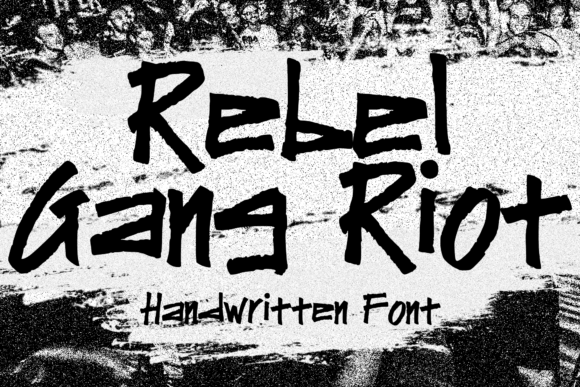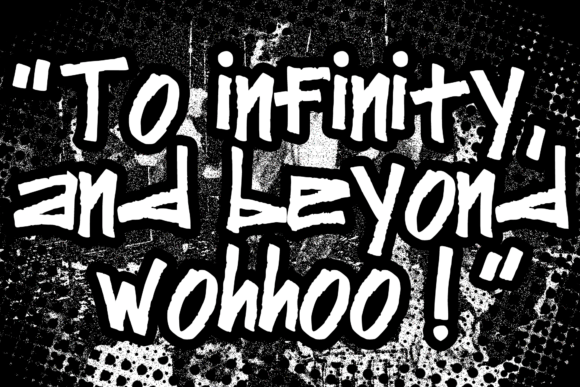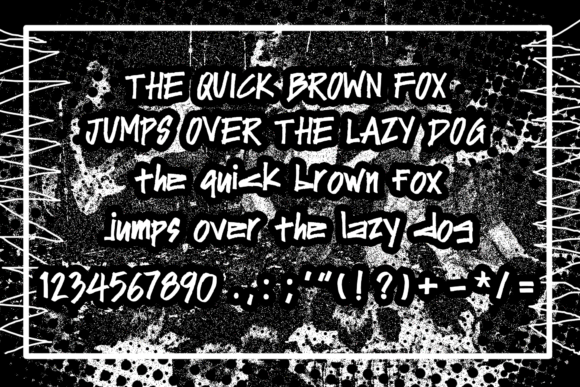
Rebel Gang Riot Font
About the Rebel Gang Riot Font
Get ready to be inspired by Rebel Gang Riot Font, a fresh and dynamic typeface for modern creators. Rebel Gang Riot is a cool spontaneous handwritten font, inspired by quick graffiti tags writing, street art, and punk rock music. It will elevate a wide range of design projects to the highest level. You can use this font for many design ideas such as stickers, t-shirt designs, amazing logo designs, magazine or book covers, comics, cartoon drawings, and many more. This font will add a cool touch to your designs!
Rebel Gang Riot’s raw energy makes it ideal for headlines, short slogans, and branding projects needing a rebellious edge. It excels in applications like posters, stickers, and apparel designs where its informal character adds impact. However, its highly stylized nature makes it unsuitable for body text or UI elements requiring high readability.
This font pairs well with clean sans-serif fonts like Futura or Helvetica for a balanced contrast between structured and freeform styles. For a more edgy aesthetic, consider pairing it with a geometric sans-serif such as Montserrat or a grunge-inspired typeface. Avoid pairing with overly decorative or script fonts which would clash with its raw aesthetic.
The font’s core personality is rebellious and energetic, conveying a sense of spontaneity and youthful defiance. It’s a great choice for brands targeting a young, alternative audience.
Rebel Gang Riot Font Example